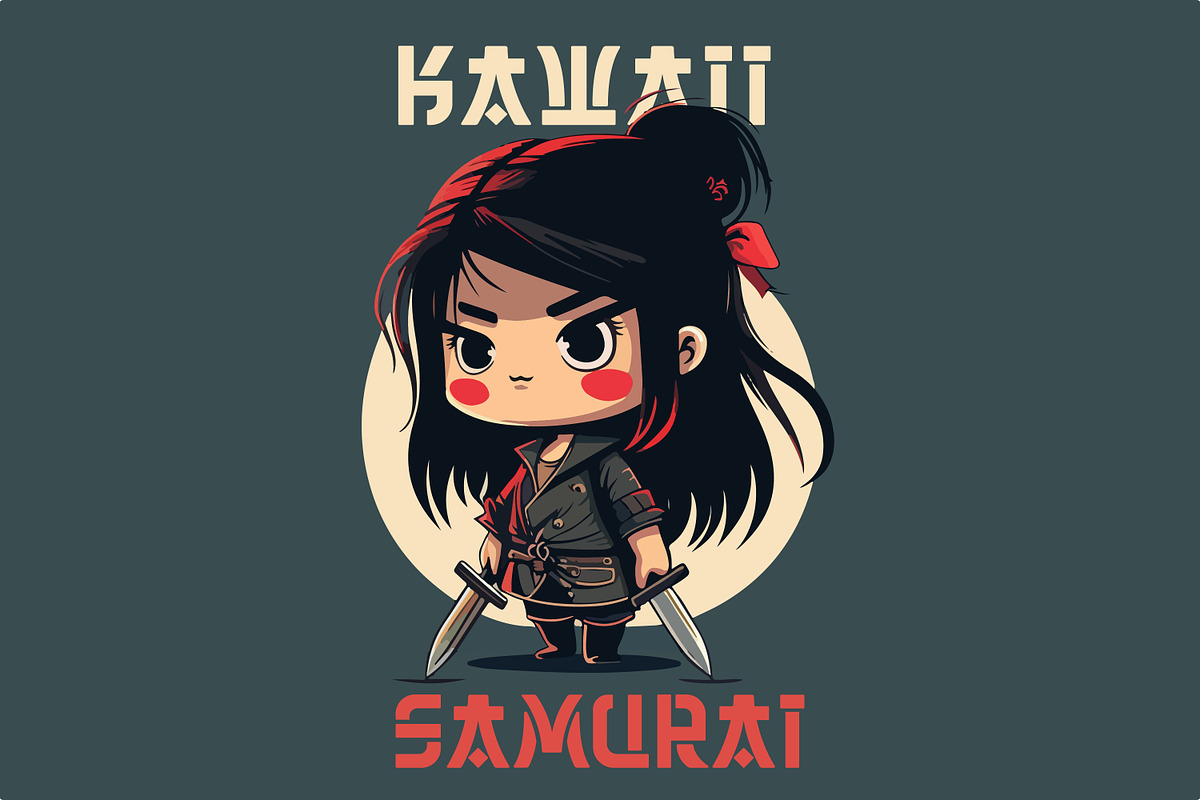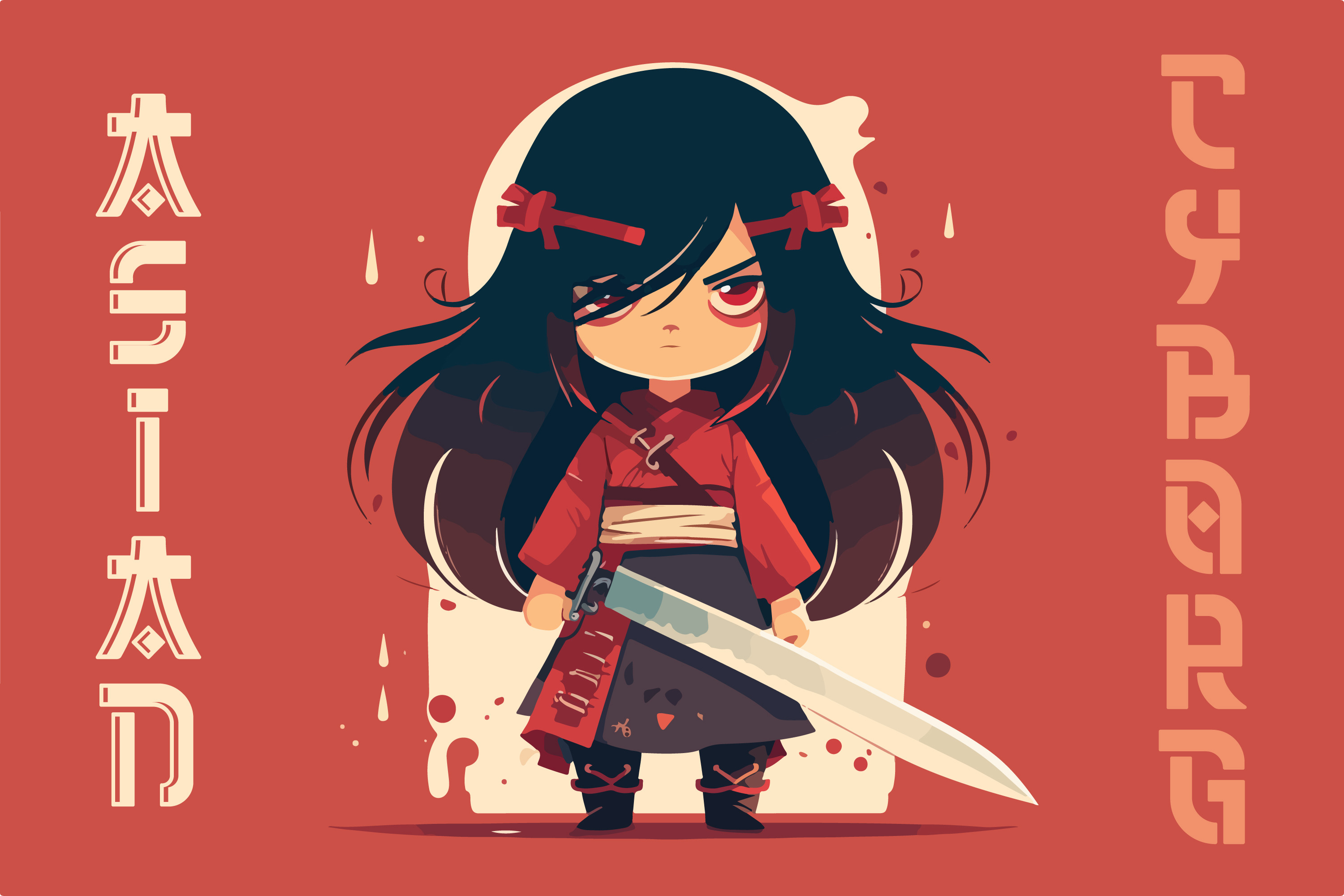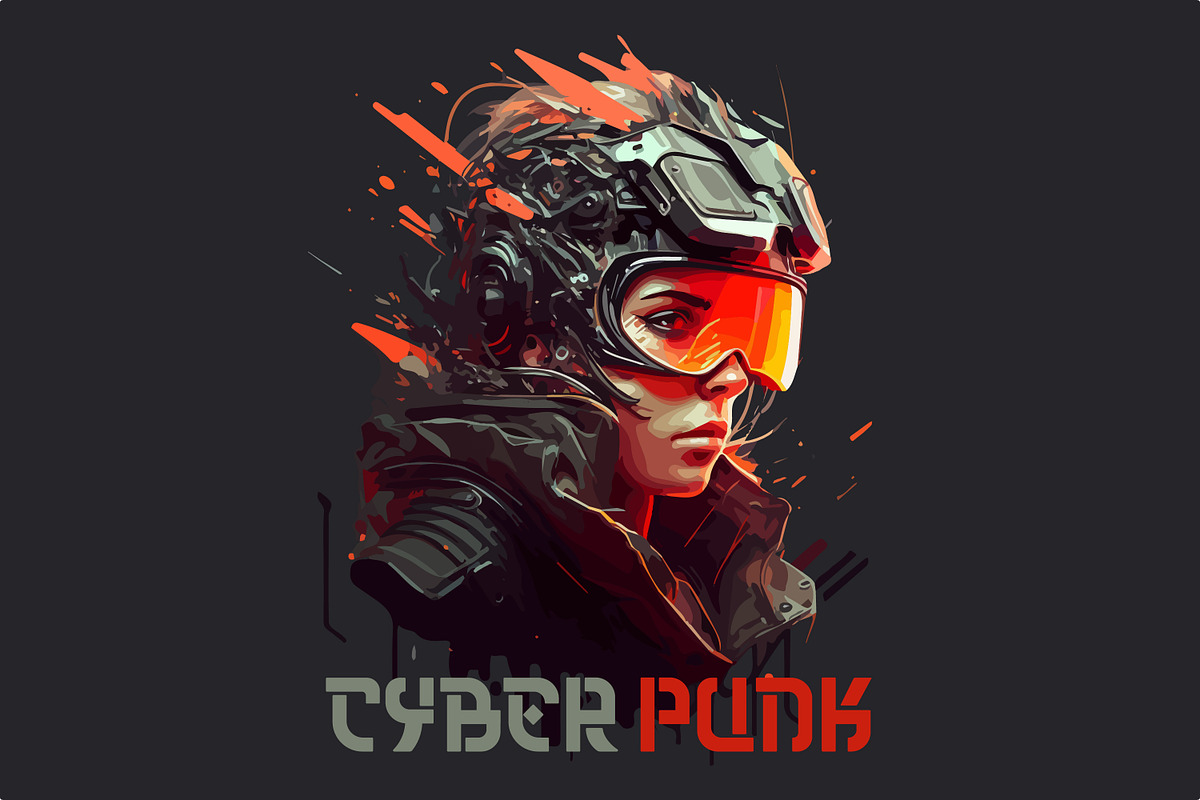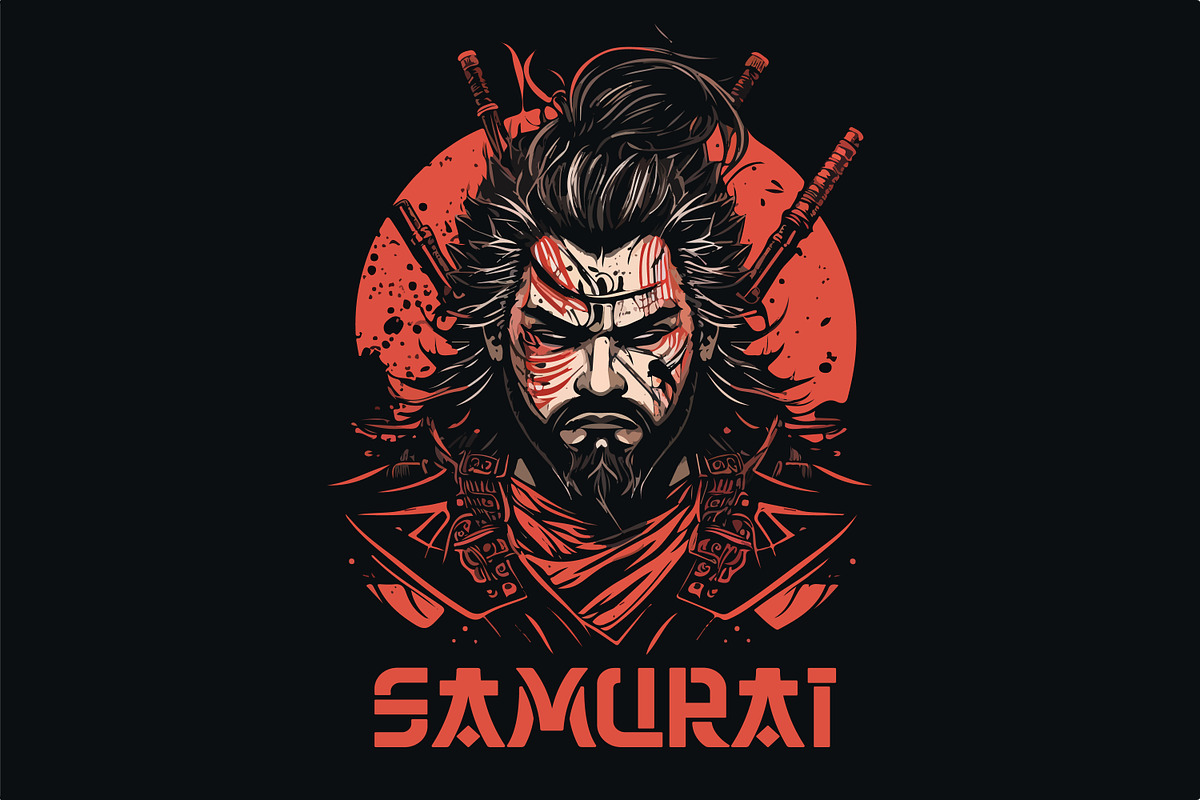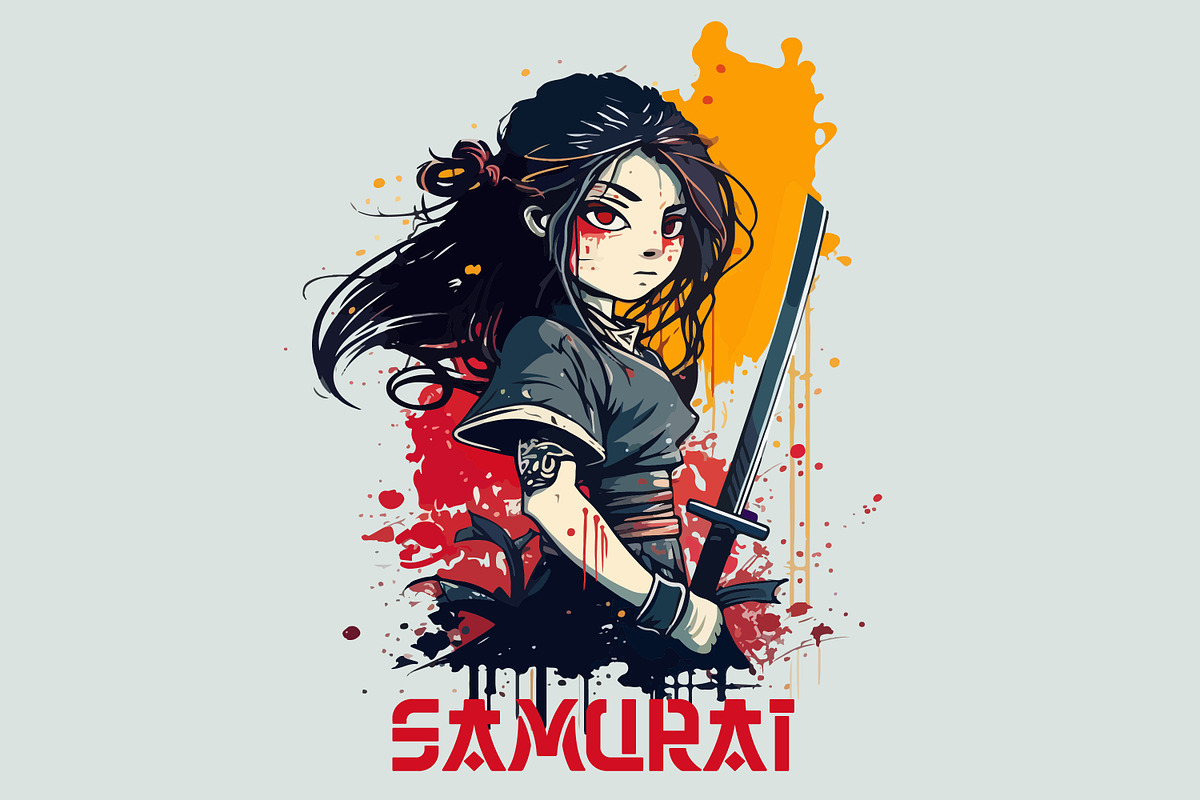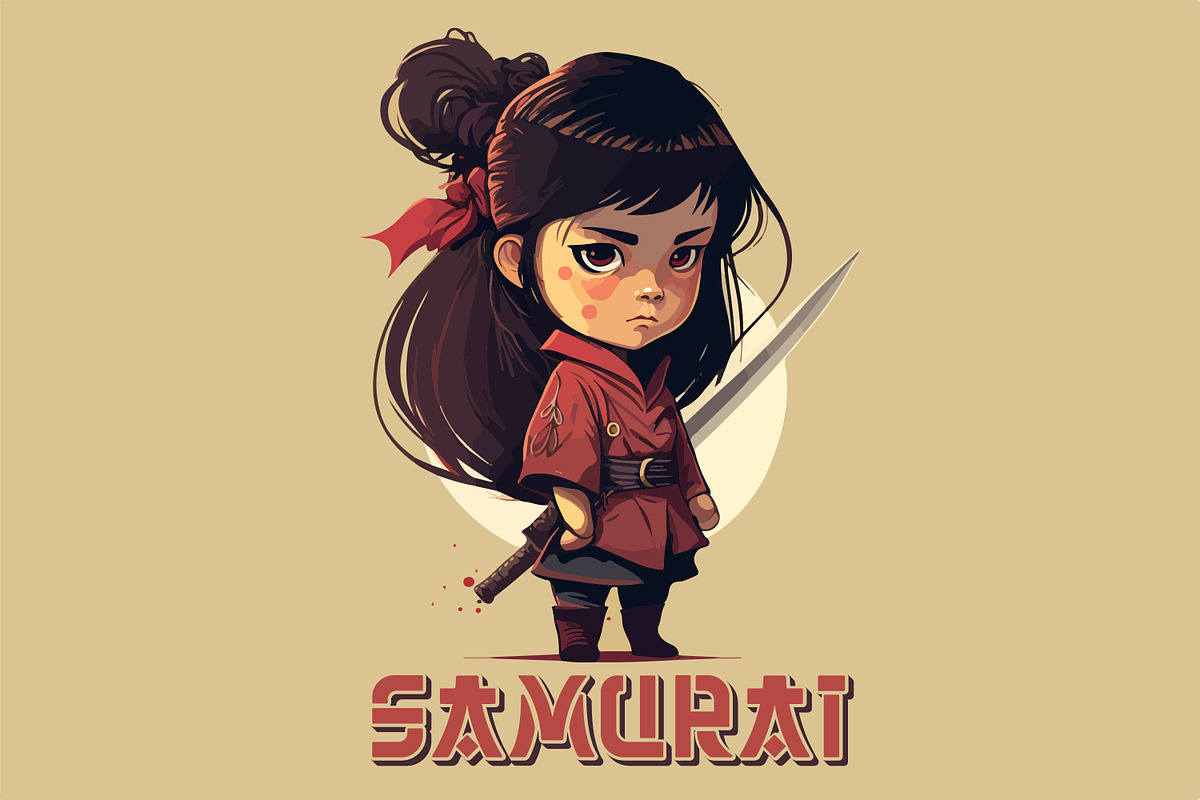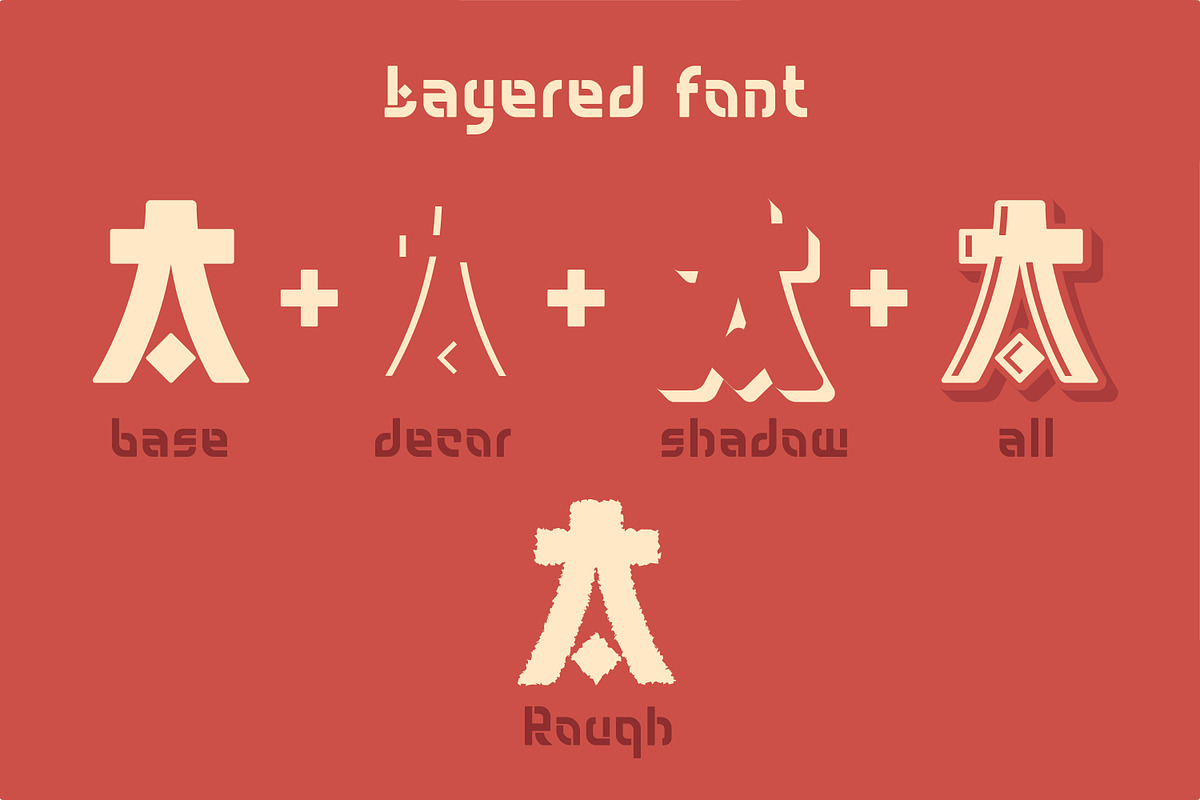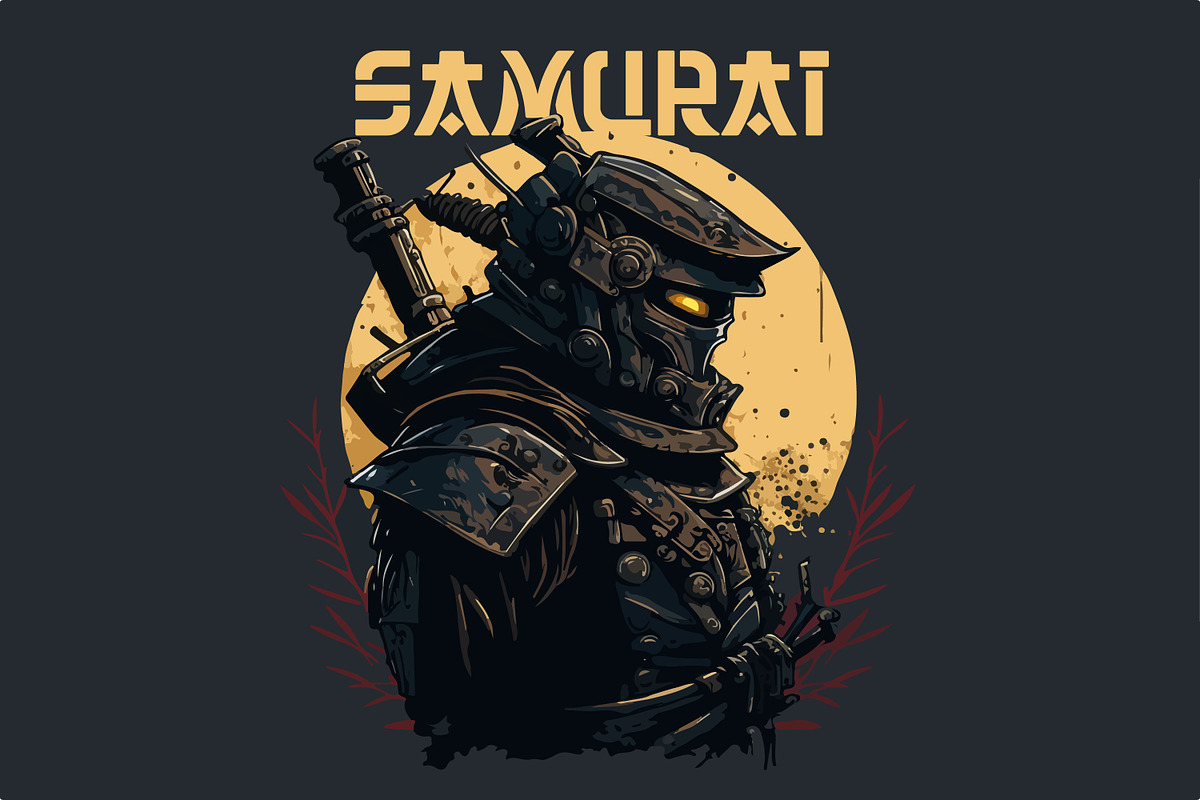
Asian cyborg typeface
Asian cyborg. Layered typeface inspired by modern Asian motifs. With a touch of futurism. Contains 5 writing styles: basic, decor, shadow, all in one, rough. A bonus in the archive are 19 vector illustrations on the theme of asia and cyberpunk.